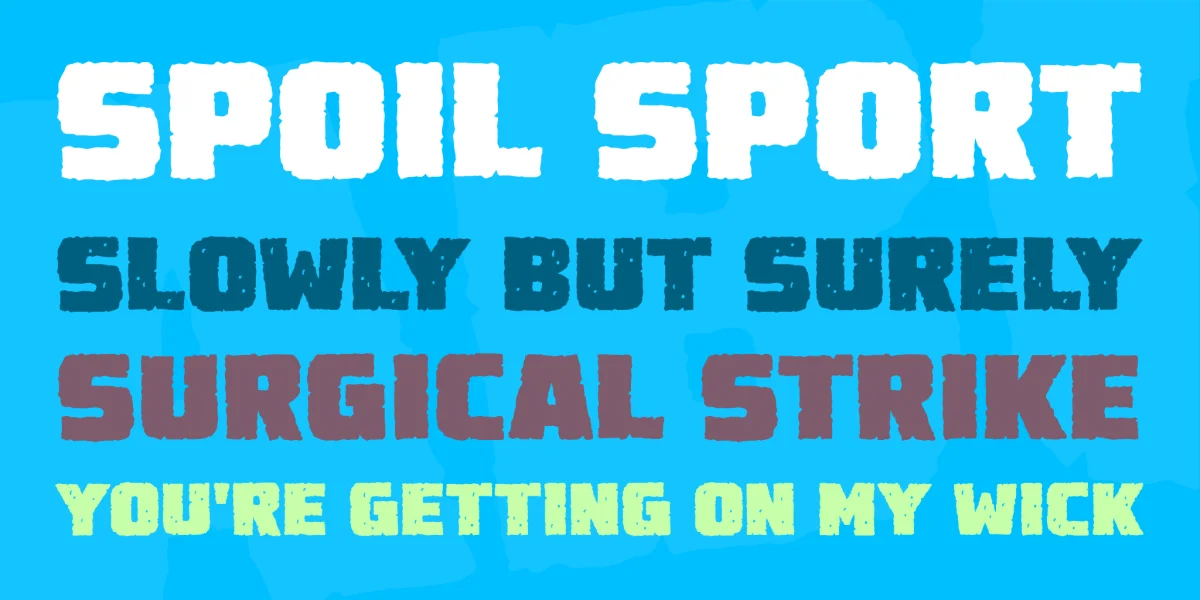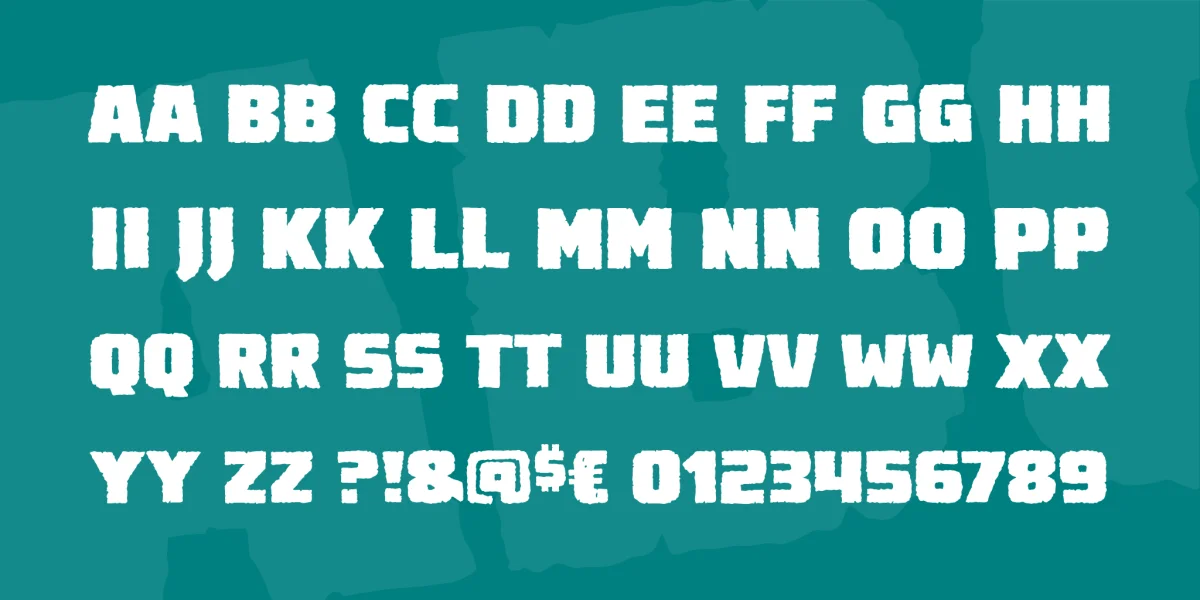
I was working on a project with big, city-demolishing monsters when I started designing this font. The upper and lowercase keys have varying distress marks so if you have to type two of any letter side by side, they can be slightly different. Warm up your disruptor beams and DESTROY EARTH!